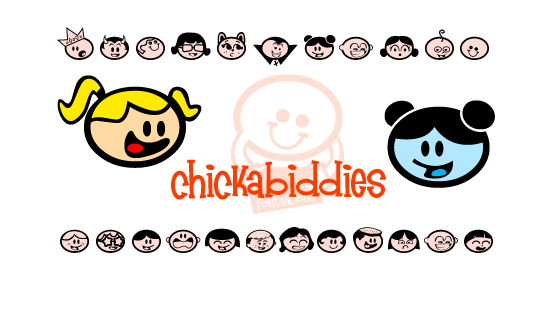
Chickabiddies
These little mofos are cute as heck. When I made geekbats, girls wrote to me and said, "Hey, what about us girl geeks? We have nerds, too!" Well, I didn't make a dingbat set of geeky girlies, but I did make a dingbat for the girls.